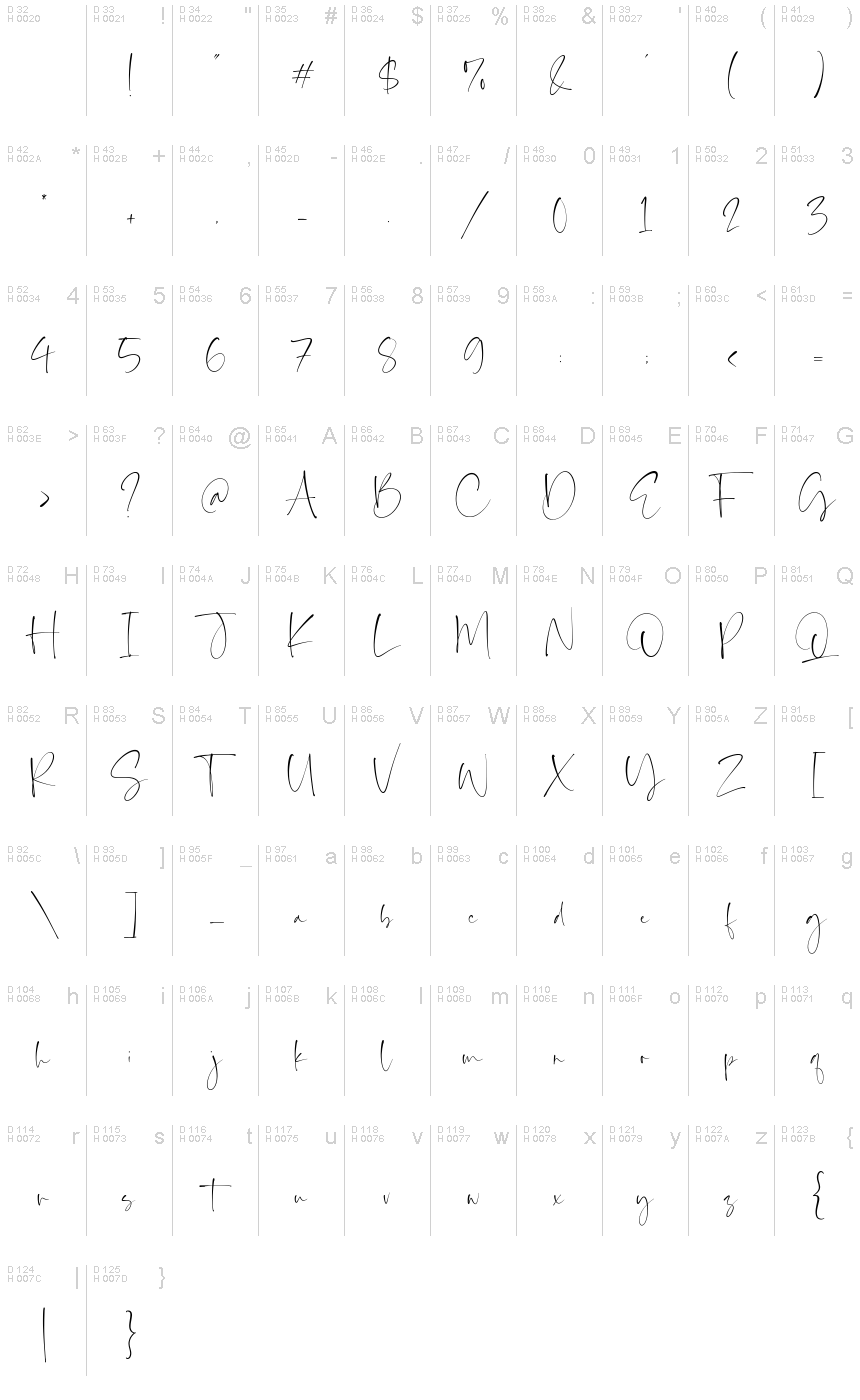
Saint Timothy
Saint Timothy font is a lively handwritten signature font by Timur Type. Its thin strokes feel luxuriously delicate, while its variable slant creates bold interruptions in the handwritten letterforms, making each character a bit more captivating and stunning. The elegant imperfect baseline of Saint Timothy makes its playful characters rhythmic and full of energy. Friendly yet serious.